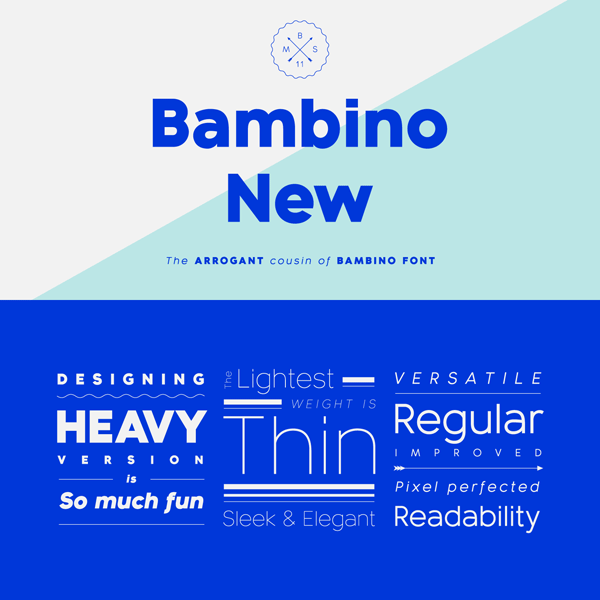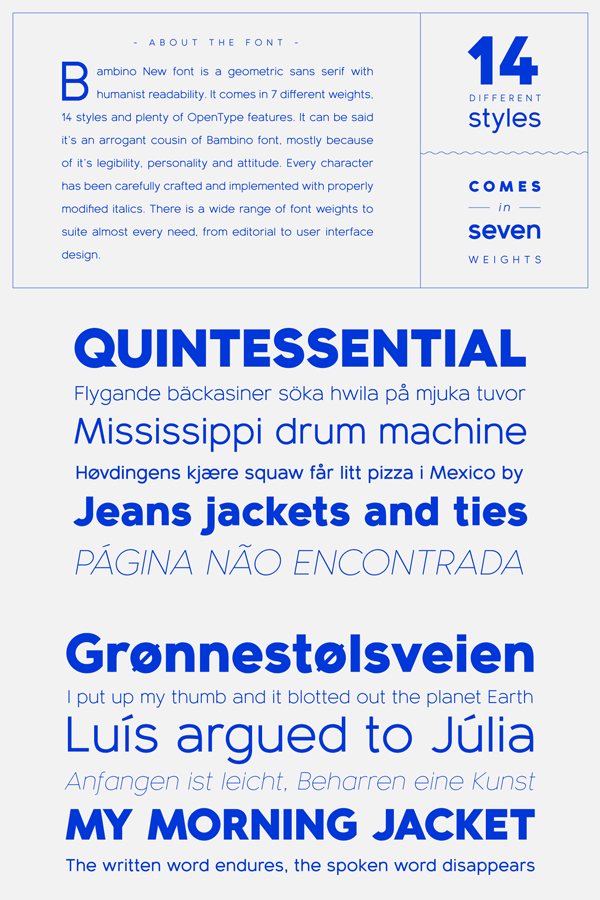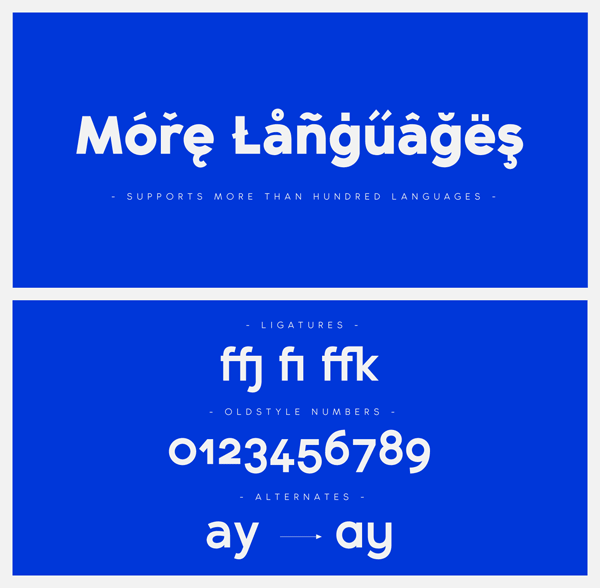
Let’s introduce you to the Bambino New font family from Mindburger Studio, a geometric sans serif with humanist legibility.
Serbian type designer Milos Mitrovic of Mindburger Studio has created the Bambino New font family in 2015. It’s an improved version of the Bambino font, which has been released in 2014. This new release offers better legibility and a more unique personality caused by some special design improvements.
The Bambino New font family is a geometric sans serif that comes in 14 styles consisting of 7 weights plus 7 matching italic versions. In addition, the typeface has been equipped with diverse OpenType features such as ligatures, oldstyle numbers, and alternate characters for more diversity. Hard to believe, but the family with its extensive character set supports over one hundred languages! Each letter has been carefully designed by Milos Mitrovic with great attention for detail and readability. This geometric typeface with its humanist touch is a good fit for display use or short text sections. Bambino New is available for purchase as webfont and desktop font.